Typography people love a debate, and “Will AI replace type designers?” sits perfectly at the intersection of hype, fear, and legitimate curiosity. Short answer: AI can generate letter shapes, even whole alphabets — but “on its own” is a stretch. AI is a powerful tool for iteration and exploration, not yet a full replacement for human-made fonts when quality, nuance, and brand intent matter.
What AI already does well
Modern AI font tools can rapidly produce variations, extrapolate a full glyph set from a few samples, and automate tedious steps like autotracing, smoothing, or building installable font files. Tools and services such as Creative Fabrica’s Font Maker and newer “Font AI” products market fast generation and template-driven outputs for designers and hobbyists. These tools are useful for rapid prototyping and for users who need quick, usable letterforms.
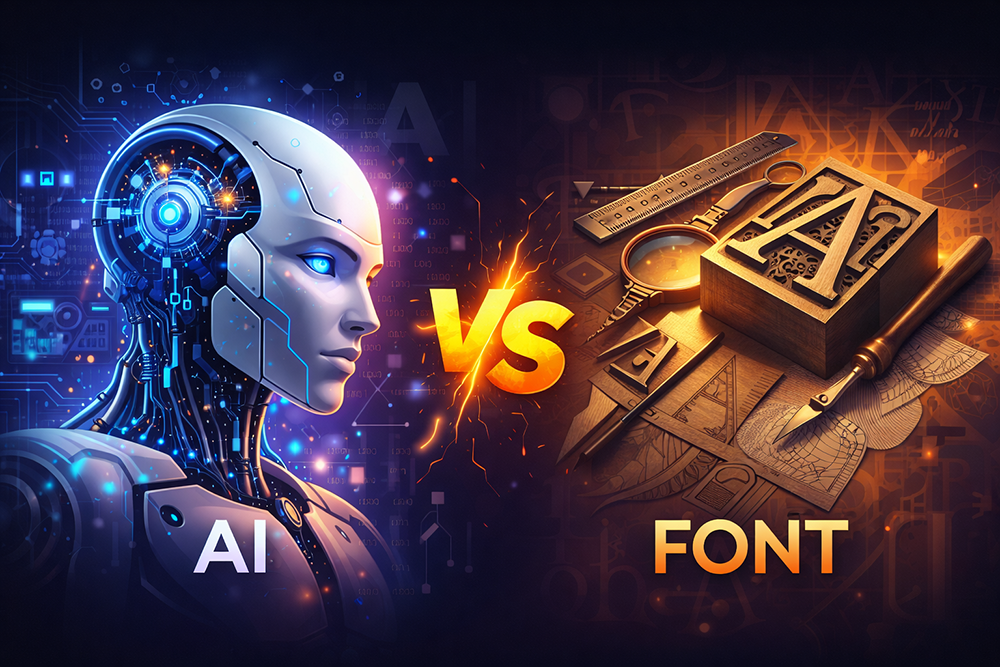
Where AI still struggles
Despite progress, several technical and aesthetic gaps remain. Research and industry reports point out persistent weaknesses in kerning quality, glyph-to-glyph consistency, and deep multilingual stroke systems (especially for large scripts like Chinese). Scholarly work on stroke-based generation highlights that automatic systems often fail to decompose glyphs into robust, reusable strokes that a production-ready type family demands. In practice, AI outputs can look shapely but brittle when scaled across weights, languages, or tight layout needs.
Design intuition vs. generative output
A font is not just a collection of shapes — it’s a voice. Human designers make choices influenced by brand narrative, cultural references, and legibility trade-offs that are hard to encode in a single prompt. AI may spot patterns and propose novel forms; humans decide which patterns communicate the right tone, how terminals should behave across contexts, or how optical corrections should be applied for different sizes. Designers also handle edge cases: display type for a billboard, small-size text on a product label, or language-specific typographic norms.
Use cases where AI shines (today)
- Rapid ideation: produce dozens of directions in minutes.
- Converting sketches to vector glyphs (useful for hobbyists and as a first draft).
- Building playful or novelty display fonts for quick projects.
- Assisting with repetitive tasks: autotracing, interpolating weights, or creating alternates.
Where human-made fonts still win
- Brand-critical typefaces (logos, long-term branding systems) where subtlety matters.
- Professional type families requiring mature kerning, hinting, and language support.
- Specialized scripts and non-Latin systems where stroke logic and cultural nuance are essential.
- Legal/licensing clarity and attribution in foundry workflows.
A practical way forward: human + AI collaboration
The most realistic future is hybrid: AI accelerates ideation, designers curate and refine, and foundries use automation for production tasks. This collaboration flips the narrative: AI is an amplifier of designer workflow rather than a mana-draining replacement. For font shops and design studios like arterfakproject.com, this is an opportunity — integrate AI tools to prototype faster, but use human expertise to finalize and position the font as a product with story, density, and professional polish.
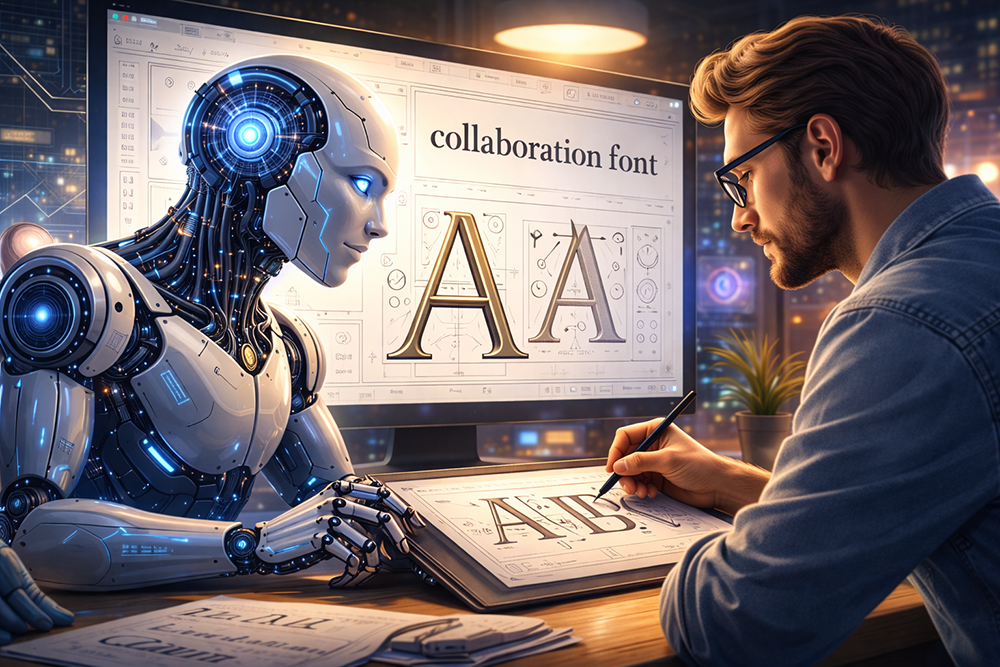
Final take
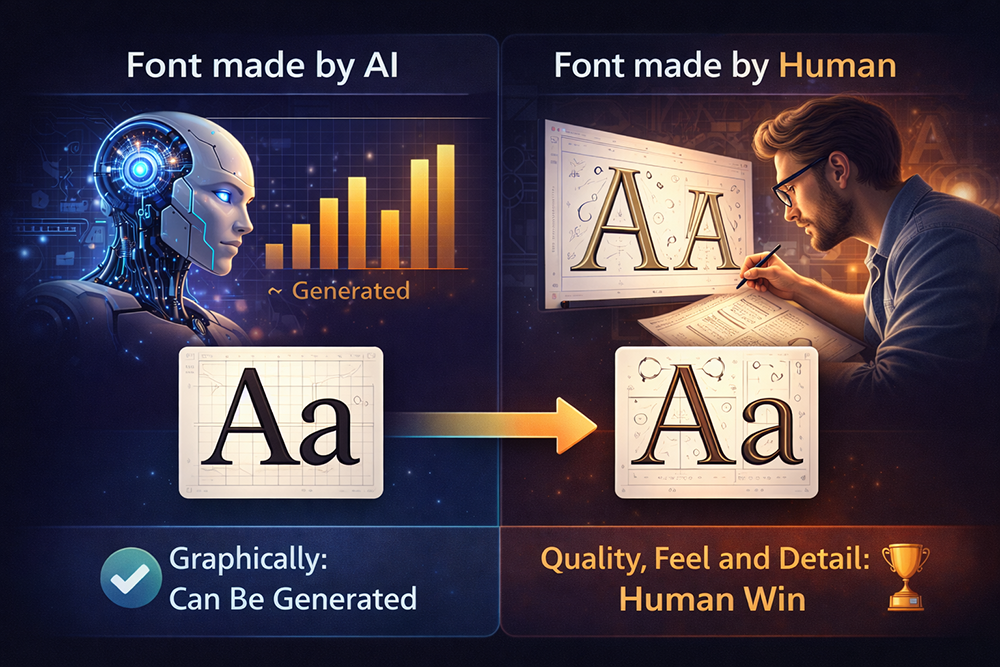
Will AI generate fonts “on its own”? Technically, yes — it can spit out alphabet. Will it replace human-made fonts? Not for high-quality, brand-sensitive work. Think of AI as a new set of brushes: it changes the speed and the starting point, but the painter still decides the composition.